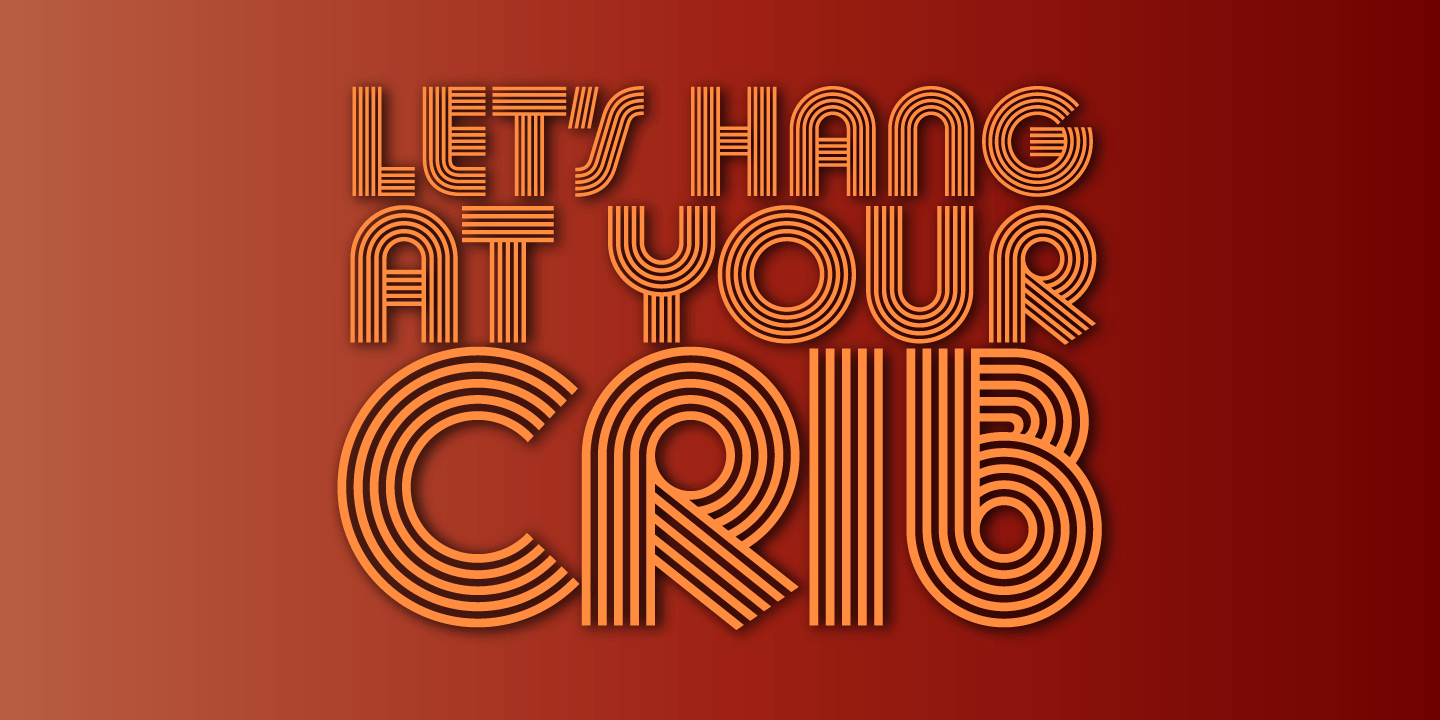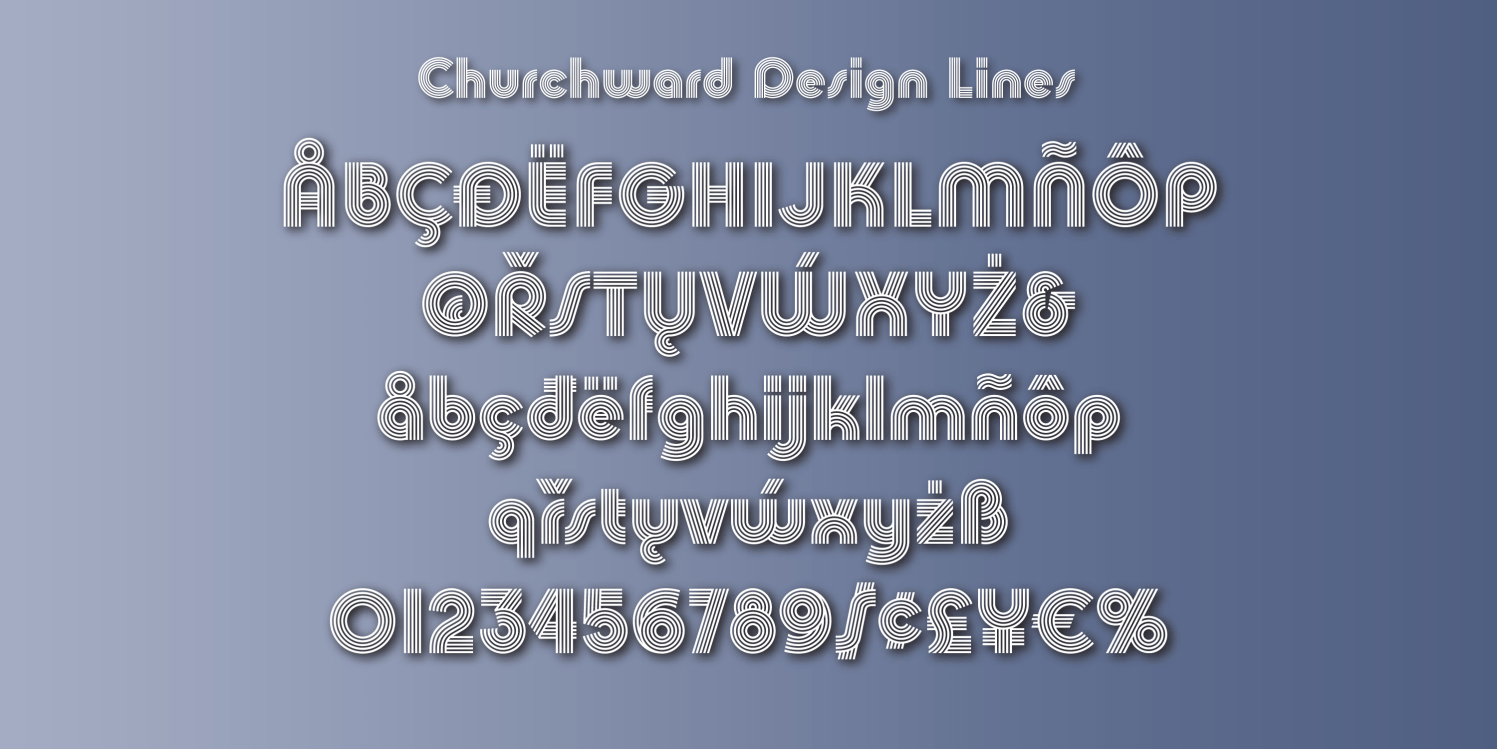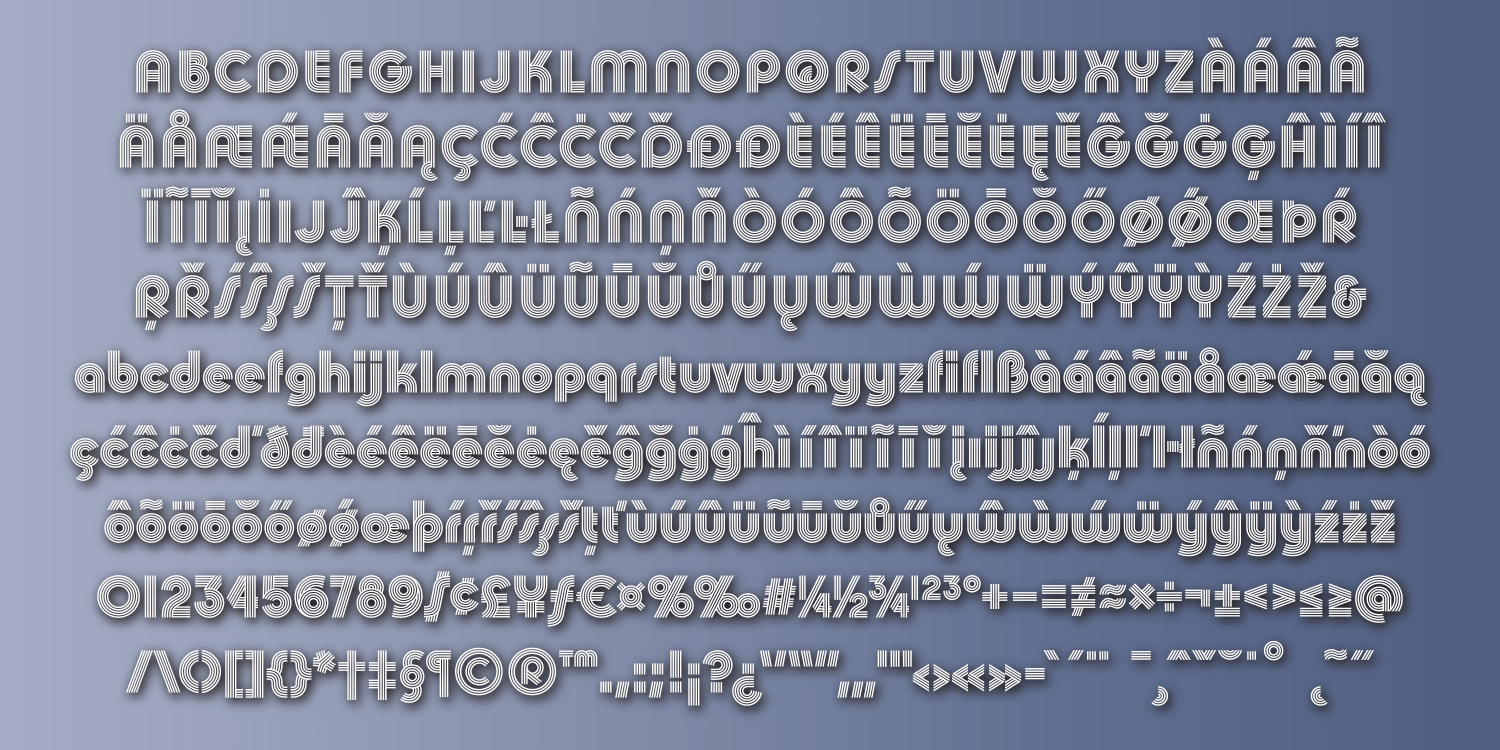
Churchward Design Lines
Churchward Design Lines is a member of the large Churchward Design family, designed in the early 70's by the late Joseph Churchward. It has the quirkiness and geometric bones of all the Design family members, but each letter in this font is composed of concentric lines that can result in some cool moiré effects. Design Lines is definitively a display font, but you can try to do text runs, if you dare! We had fun creating some of the accented letters of the extended European character set, which presented some interesting challenges! Have some fun, check it out!